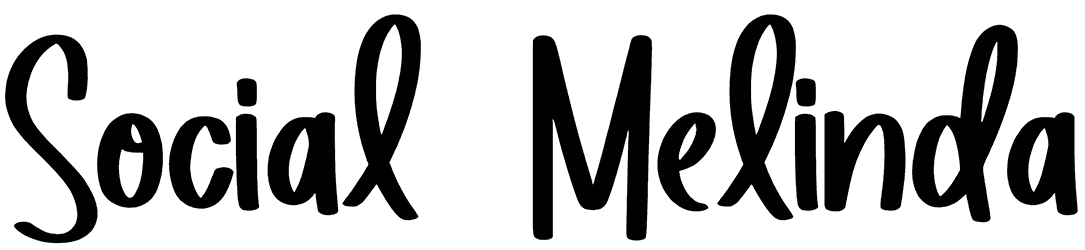
Sunday Morning Font
Take a look at this quirky font with its playful and funny face. The Sunday Morning font consists of unique hand-lettering characters that can make your design adorable. Most punctuation marks are unavailable, but this bullet journal font is going to add a pretty and vivid mood to your projects, such as a summer camp poster, chocolate packaging, and so on.